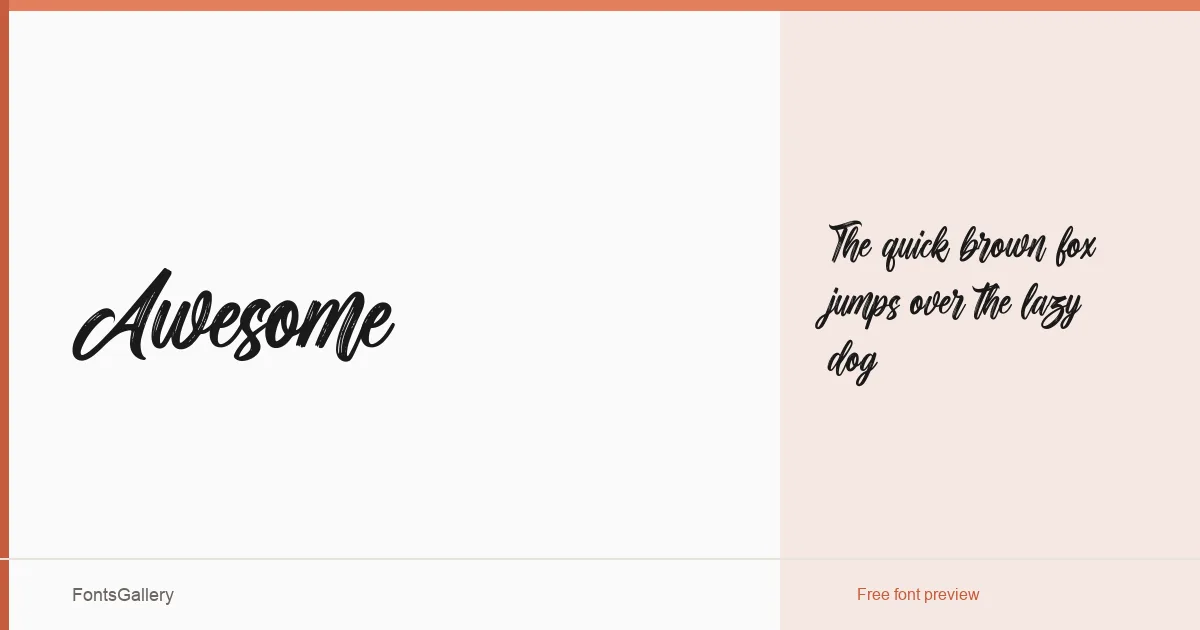
About Awesome Font
Awesome is a script typeface crafted by Aveni Yuanita under her foundry, Aveni Letter Type. Blending elegance with a playful romantic spirit, this font brings warmth and personality to a wide range of creative projects. Its expressive character makes it an instantly appealing choice for designers seeking a distinctive handcrafted feel.
As a script font, Awesome features flowing letterforms with graceful curves that evoke an elegant and romantic sensibility. The playful quality of its strokes adds a light, lively energy that keeps the design feeling fresh and approachable rather than overly formal. Each character is crafted to connect naturally, lending compositions a fluid, hand-lettered charm.
Awesome is ideally suited for wedding stationery, invitation cards, greeting cards, logos, and branding projects where a romantic and elegant tone is desired. Its expressive style helps create memorable first impressions across both print and digital applications. For a beautifully balanced pairing, consider combining Awesome with Aresink for a complementary script feel, or with Helvetica for a clean, modern contrast.